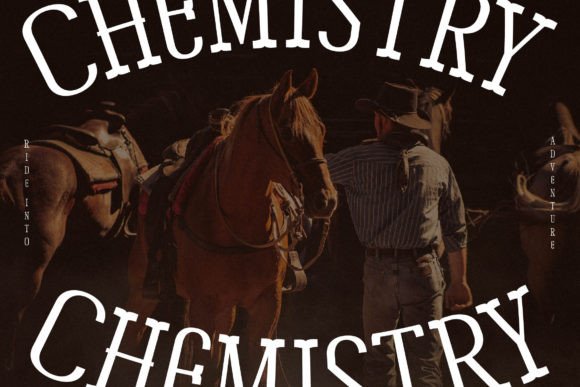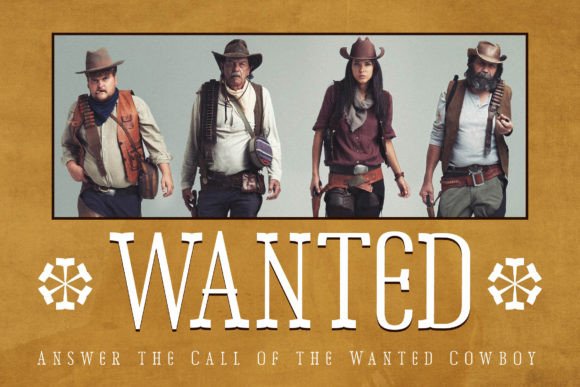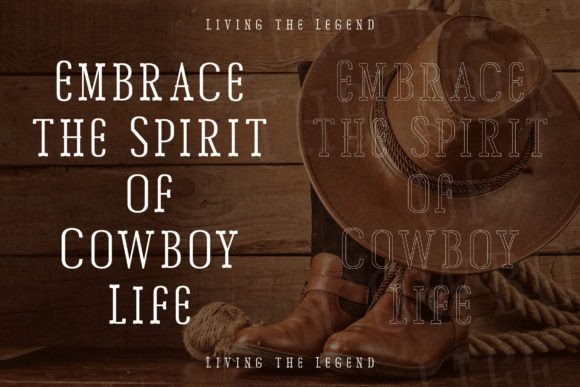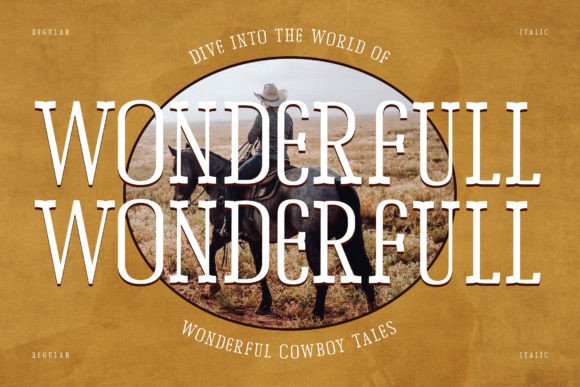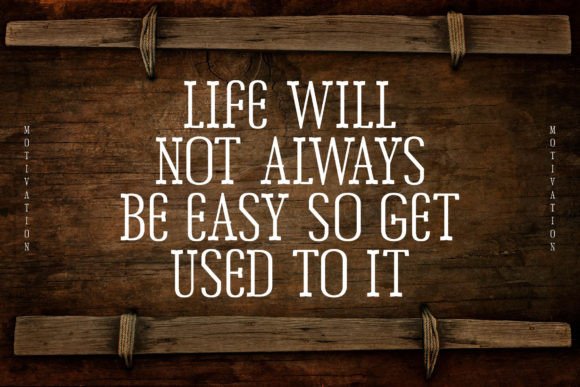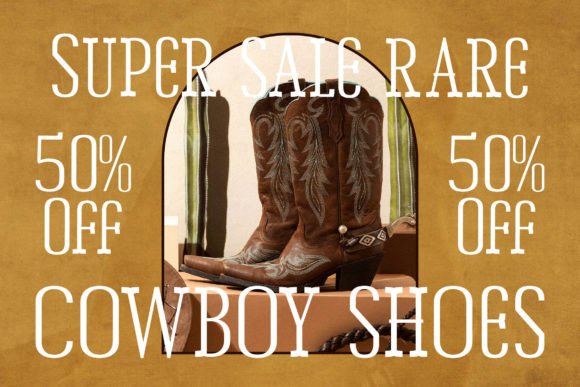
Introducing Chery Bomber Font: The Epitome of Modern Elegance
In the realm of typography, few fonts have managed to strike a balance between modernity and classic sophistication. Chery Bomber Font is one such typeface that has carved a niche for itself with its unique style and contemporary look. This elegant font is perfect for designers and crafters looking to add a touch of luxury and refinement to their projects.
What Makes Chery Bomber Font Stand Out?
Chery Bomber Font boasts a distinctive design that sets it apart from other typefaces. Its modern and classic aesthetic makes it an ideal choice for a wide range of applications, from elegant logos and book or movie titles to fashion brands, magazines, and clothing designs. The font’s unique style is characterized by its clean lines, sophisticated curves, and a perfect balance of boldness and subtlety.
Perfect for Luxurious and Elegant Designs
Chery Bomber Font is the perfect choice for designers who want to create luxurious and elegant designs. Its refined appearance makes it suitable for high-end logos, book covers, movie titles, and fashion brand identities. The font’s classic and modern blend ensures that your designs exude sophistication and style, making it perfect for:
- Elegant logos and branding
- Book and movie title designs
- Fashion brands and clothing designs
- Magazines and editorial content
- Lettering and quotes
Why Choose Chery Bomber Font?
There are several reasons why Chery Bomber Font should be your go-to typeface for your next design project:
- Unique Style: Chery Bomber Font has a distinctive style that sets it apart from other typefaces.
- Modern and Classic: The font strikes a perfect balance between modernity and classic sophistication.
- Versatile: Chery Bomber Font can be used for a wide range of applications, from logos and branding to book covers and movie titles.
- Elegant and Luxurious: The font’s refined appearance makes it perfect for high-end designs.
Tips for Using Chery Bomber Font
To get the most out of Chery Bomber Font, here are some tips to keep in mind:
- Pair it with neutral colors: Chery Bomber Font looks great when paired with neutral colors like black, white, and gray.
- Experiment with font sizes: The font looks great in various sizes, from large headings to smaller body text.
- Use it for headlines and titles: Chery Bomber Font is perfect for headlines and titles, where its elegant and luxurious appearance can shine.
Chery Bomber Font is a modern and classic typeface that is perfect for designers and crafters looking to add a touch of elegance and luxury to their projects. Its unique style, versatile nature, and refined appearance make it an ideal choice for a wide range of applications. Whether you’re designing a logo, book cover, or fashion brand identity, Chery Bomber Font is sure to impress.